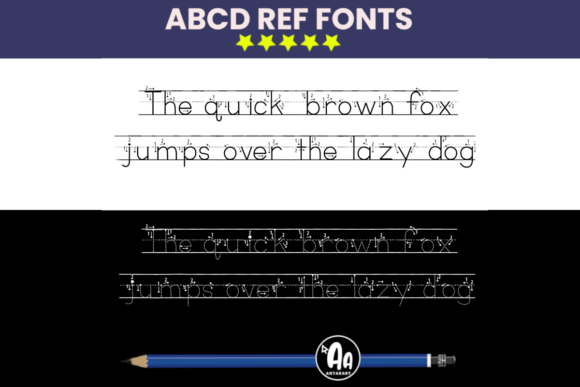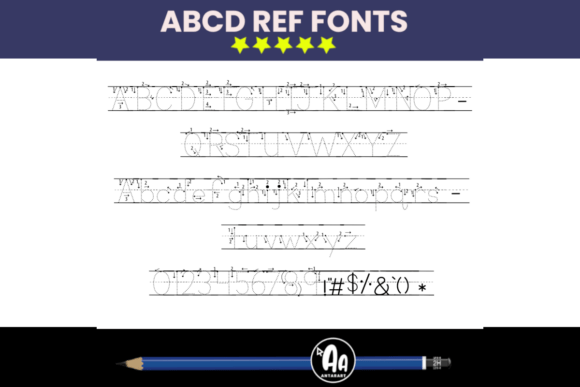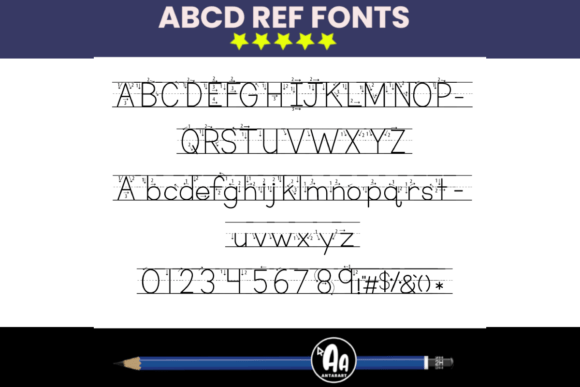
Unlock Efficient Handwriting Practice with Arrows Lined Letter Tracing Font
Are you a teacher, educator, or parent seeking an effective way to help students develop handwriting skills? Look no further than the Arrows Lined Letter Tracing Font, a comprehensive letter tracing font set designed to facilitate correct letter formation and stroke order. This versatile font bundle is perfect for creating engaging handwriting worksheets, alphabet practice activities, and fine motor centers for preschool, kindergarten, homeschool, ESL, and special education settings.
Key Features of the Arrows Lined Letter Tracing Font
- Solid and Dotted Letter Styles: The font set includes both solid and dotted letter styles, providing flexibility and variety for handwriting practice.
- Lined Directional Arrows: The inclusion of lined directional arrows guides students in learning correct letter formation and stroke order, ensuring they develop muscle memory and handwriting confidence.
- Traditional School Handwriting Style: Based on traditional school handwriting styles, this font helps maintain consistency and familiarity in handwriting practice.
- Easy to Use: The Arrows Lined Letter Tracing Font is user-friendly, allowing teachers to effortlessly design tracing pages, fine motor centers, or digital activities.
Benefits for Educators and Students
The Arrows Lined Letter Tracing Font offers numerous benefits for both educators and students:
- Customizable Worksheets: Create hundreds of handwriting worksheets tailored to individual students’ needs, making it an ideal resource for mixed-ability classrooms.
- Improved Handwriting Confidence: By guiding students through correct letter formation and stroke order, this font helps build handwriting confidence and fluency.
- Time-Saving: With the Arrows Lined Letter Tracing Font, educators can quickly generate engaging handwriting practice materials, saving valuable time and effort.
- Adaptable to Various Learning Settings: This font set is suitable for preschool, kindergarten, homeschool, ESL, and special education environments, providing a versatile tool for diverse learning settings.
Applications in Education
The Arrows Lined Letter Tracing Font can be applied in various educational settings and activities:
- Handwriting Worksheets: Design customized handwriting worksheets for students to practice letter formation and stroke order.
- Alphabet Practice Activities: Create engaging alphabet practice activities, such as tracing, writing, and matching games.
- Fine Motor Centers: Develop fine motor centers that focus on handwriting, letter formation, and dexterity.
- Digital Activities: Incorporate the Arrows Lined Letter Tracing Font into digital activities, such as interactive worksheets, games, and multimedia presentations.
If you’re a designer or crafter looking to incorporate the Arrows Lined Letter Tracing Font into your work, here are some valuable tips:
- Experiment with Font Styles: Combine the solid and dotted letter styles with lined directional arrows to create visually appealing and engaging handwriting practice materials.
- Customize Worksheets: Tailor worksheets to individual students’ needs by adjusting font size, color, and layout.
- Integrate with Other Educational Resources: Combine the Arrows Lined Letter Tracing Font with other educational resources, such as worksheets, posters, and activity sheets, to create comprehensive learning materials.
In conclusion, the Arrows Lined Letter Tracing Font is an indispensable tool for educators and designers seeking to create effective handwriting practice materials. With its solid and dotted letter styles, lined directional arrows, and traditional school handwriting style, this font set provides a comprehensive solution for teaching correct letter formation and stroke order. By incorporating this font into your educational resources, you can help students build handwriting confidence and fluency, setting them up for success in their academic journey.
| Font Name | Arrows Lined Letter Tracing Font |
| Author | AntarArt |